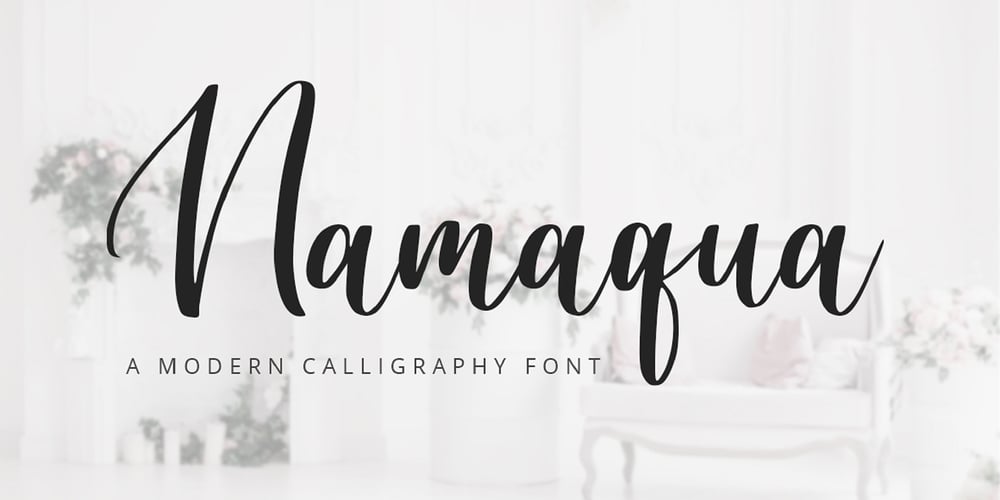
Namaqua Font Family was designed by Heri Imanudin and published by Krafted. Namaqua contains 1 styles and family package options. Escape to the bliss of the Namaqualand. A landscape carpeted in wildflowers and magical star-studded nights. Where visitors come from all over the world to experience the cacophony of nature in its purest form. Introducing Namaqua – A Modern Calligraphy Font.This gorgeous font can be used for a host of different content needs and projects. Use it for your headings, logos, business cards, printed quotes, invitations, packaging, resumes, and even your website or social media branding. Enchant your audience, clients or guests with this versatile, elegant font. What you’ll get: Multilingual & Ligature Support Full sets of Punctuation and Numerals Compatible with: Adobe Suite Microsoft Office KeyNote Pages Software Requirements: The fonts that you’ll receive in the pack are widely supported by most software. In order to get the full functionality of the selection of standard ligatures (custom created letters) in the script font, any software that can read OpenType fonts will work. We hope you enjoy this font and that it makes your branding sparkle! Feel free to reach out to us if you’d like more information or if you have any concerns.